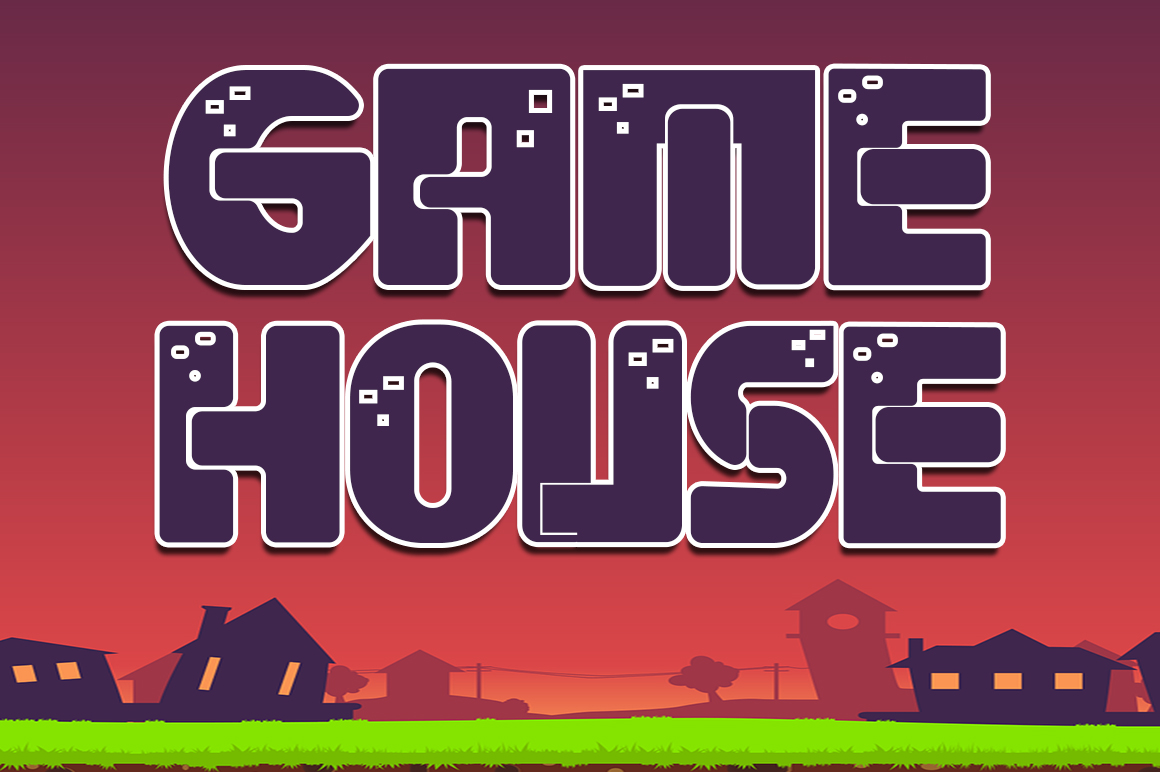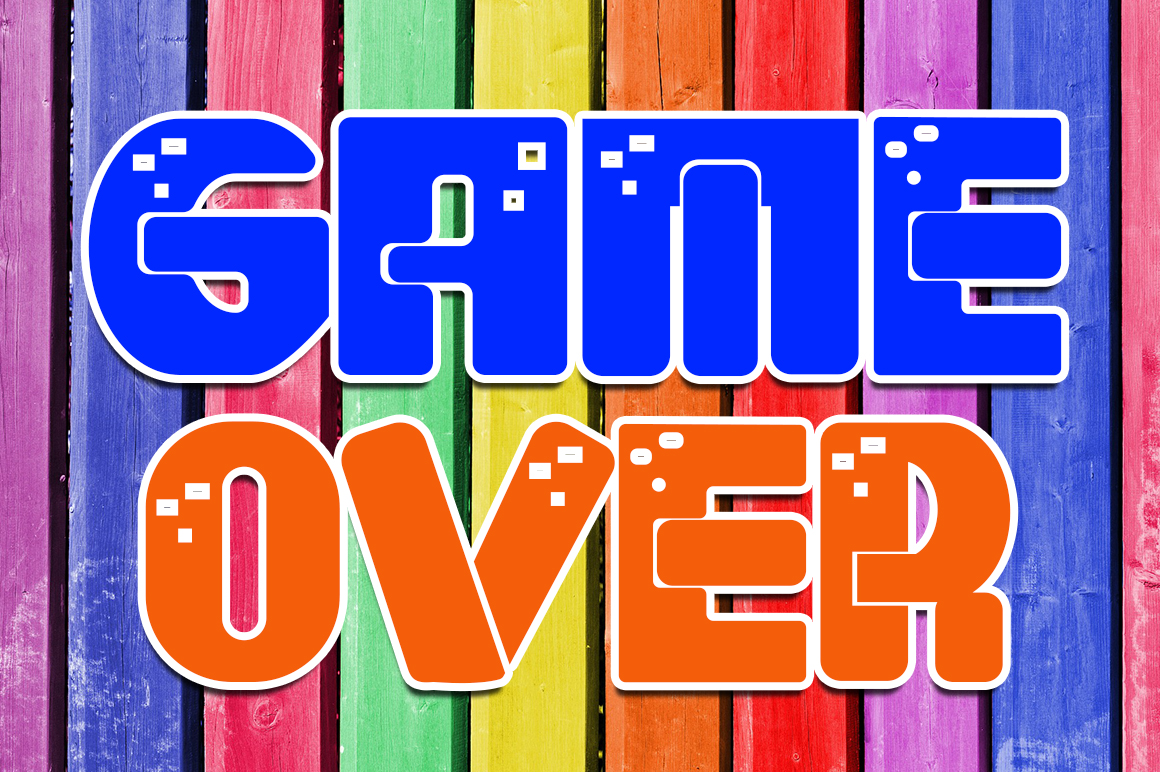
Game Shark Display Font
It’s a cool and cartoon like display font. It embodies playfulness and authenticity and is the perfect choice for any children activity or school project. Add this chunky lettered font to your designs and notice how it makes them come alive!